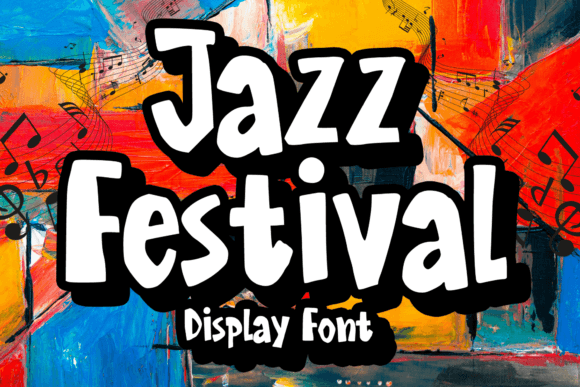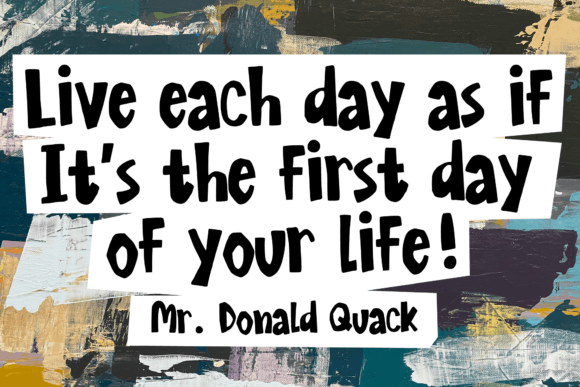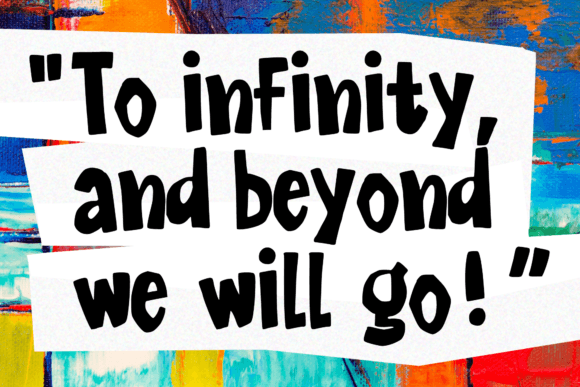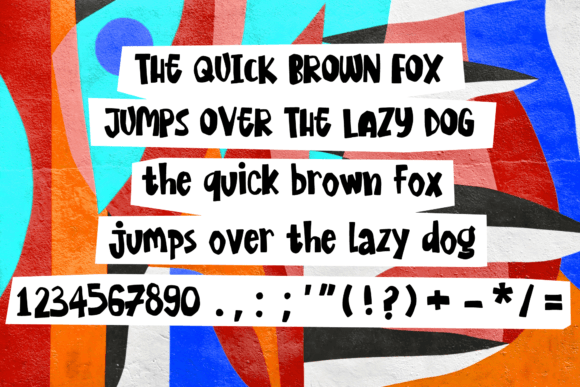
The Perfect Harmony of Design: Introducing Jazz Festival Font
You know that moment when inspiration strikes, and your creative juices start flowing? It’s the moment when a project comes together, and you can almost hear the music playing in your head. For designers, this feeling is a familiar one, and it’s exactly what we’re talking about when we say that the right font can make all the difference.
Enter Jazz Festival Font, a stunning artsy display font that’s sure to elevate your designs to the next level. Inspired by the glamour of vintage art deco posters and the soulful rhythms of jazz music, this font is the perfect blend of style and sophistication. Whether you’re designing a t-shirt, a book cover, or a greeting card, Jazz Festival Font is the perfect addition to give your project that extra oomph.
With its incredibly versatile style, Jazz Festival Font is a valuable tool for designers who want to add a touch of artistry to their work. Its unique blend of elegance and playfulness makes it perfect for a wide range of projects, from posters and stickers to book designs and more.
Jazz Festival Font Key Features
- Font Family: Jazz Festival Font is a unique, hand-drawn font designed to evoke the spirit of jazz music. It comes in multiple weights, including Light, Regular, Bold, and Black.
- Unique Characteristics: The font features intricate, hand-drawn details and a distinctive, vintage aesthetic, making it perfect for jazz-themed designs, music festivals, and art projects.
Jazz Festival Font Review
- Unique aesthetic: The Jazz Festival Font has a distinct, playful feel that’s perfect for music-related projects.
- Good legibility: The font is clear and easy to read, even at smaller sizes.
- Comprehensive character set: The font includes a wide range of characters, including ligatures and special symbols.
- Overly stylized: While the font’s unique aesthetic is a strength, it can also be a weakness. Some users may find it too ornate or difficult to read.
- Lack of versatility: The Jazz Festival Font is best suited for music-related projects. It may not be the best choice for general use or other types of projects.
- Some characters may not render correctly: I experienced some issues with certain characters not displaying properly, particularly at smaller sizes.
The Jazz Festival Font is a solid choice for music-related projects that require a unique and playful aesthetic. However, it may not be the best fit for more general use or projects that require a more straightforward, easy-to-read font. With some limitations in mind, it’s a good option for designers looking to add some personality to their music-related designs.
Tips for Getting the Most Out of Jazz Festival Font
Use Jazz Festival Font to add a touch of elegance and sophistication to your designs. Consider using it for:
- Event invitations and promotional materials.
- Music and arts-related projects.
- High-end branding and marketing materials.